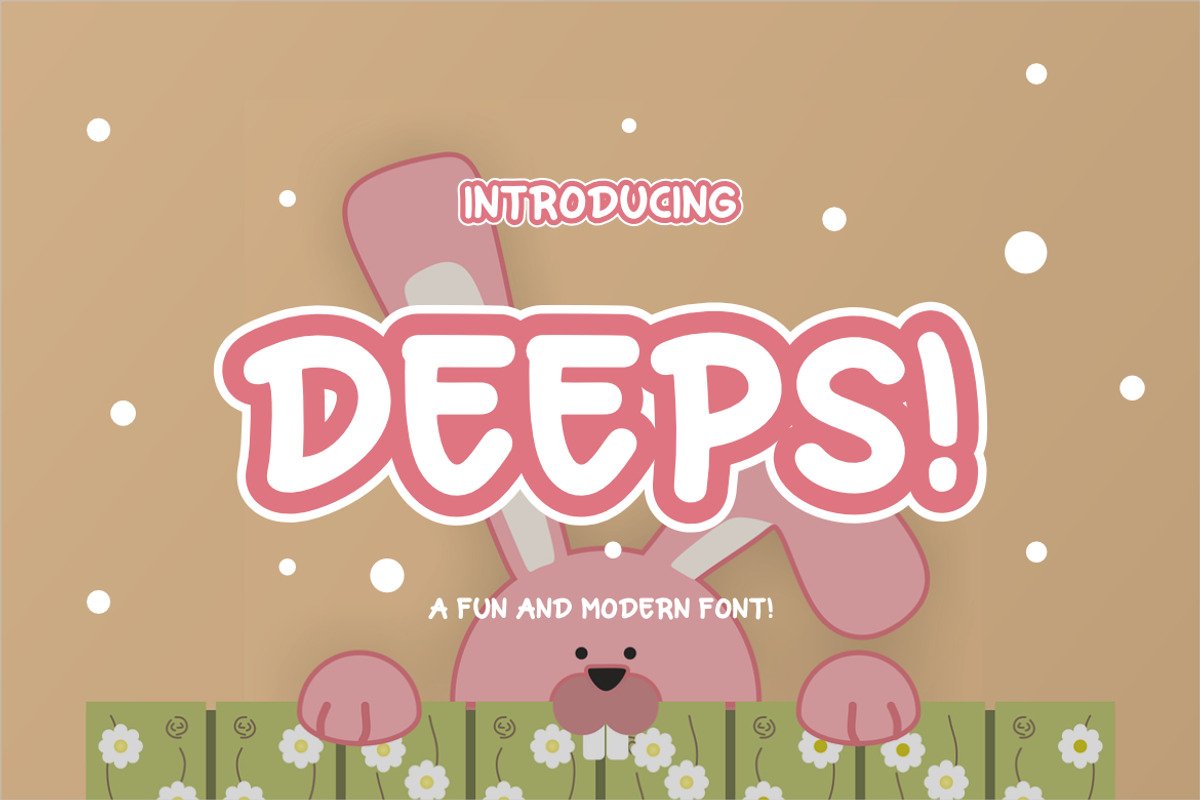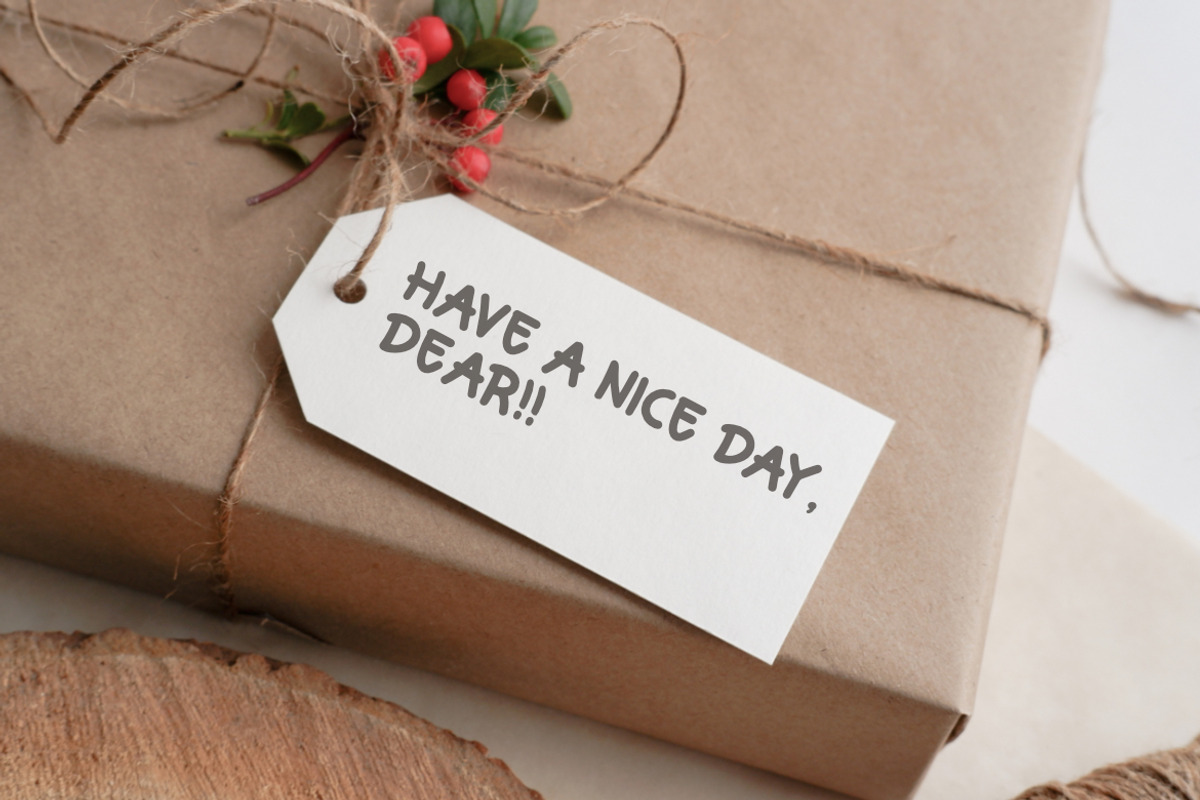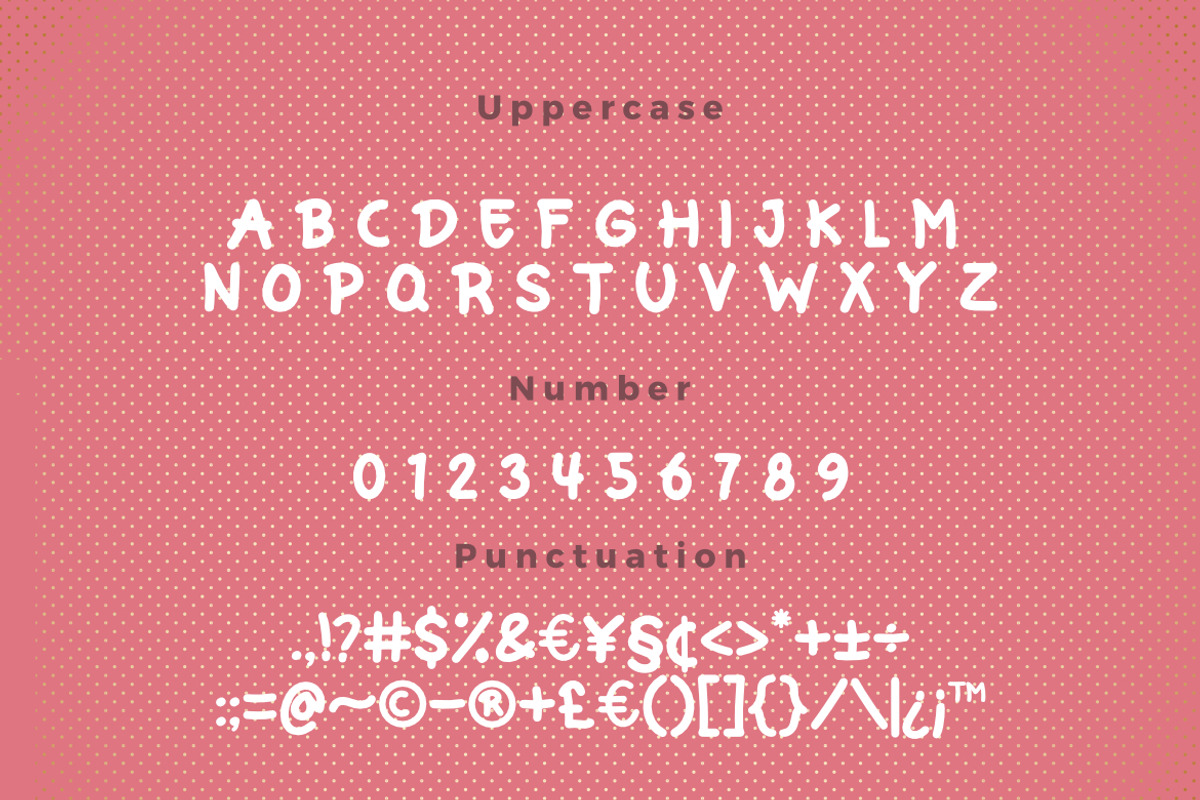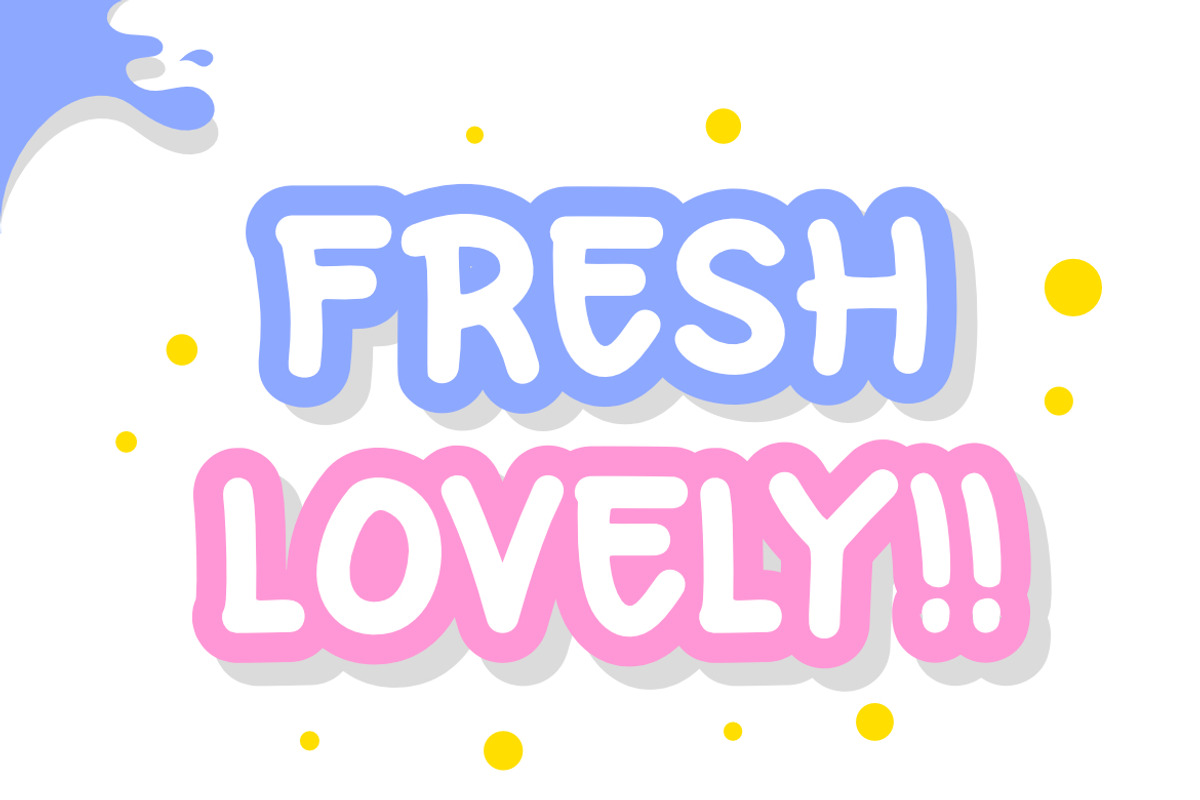
Deeps a Fun and Modern Font
Deeps a Fun and Modern Font, inspired by cartoon style typography. This font is made with a high premium quality level which you can use as flyers, quotes, posters, banners, packaging, merchandise, logotypes and much more.